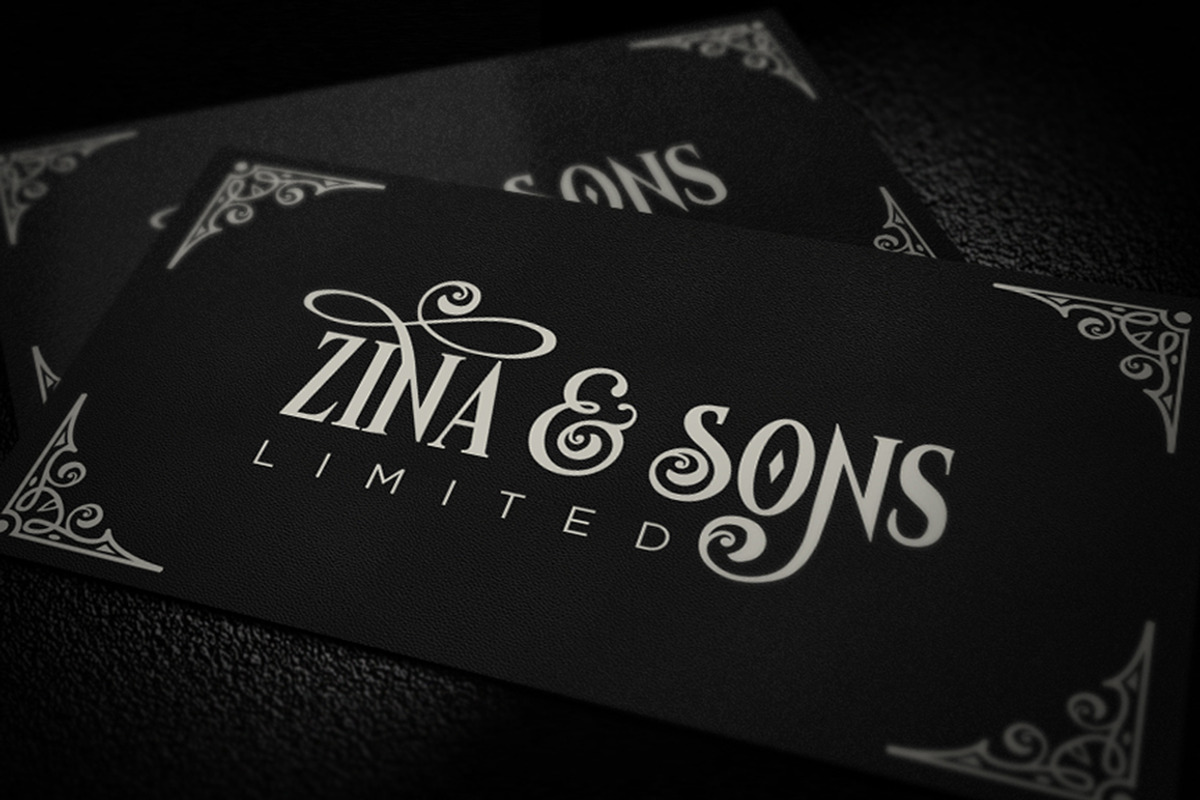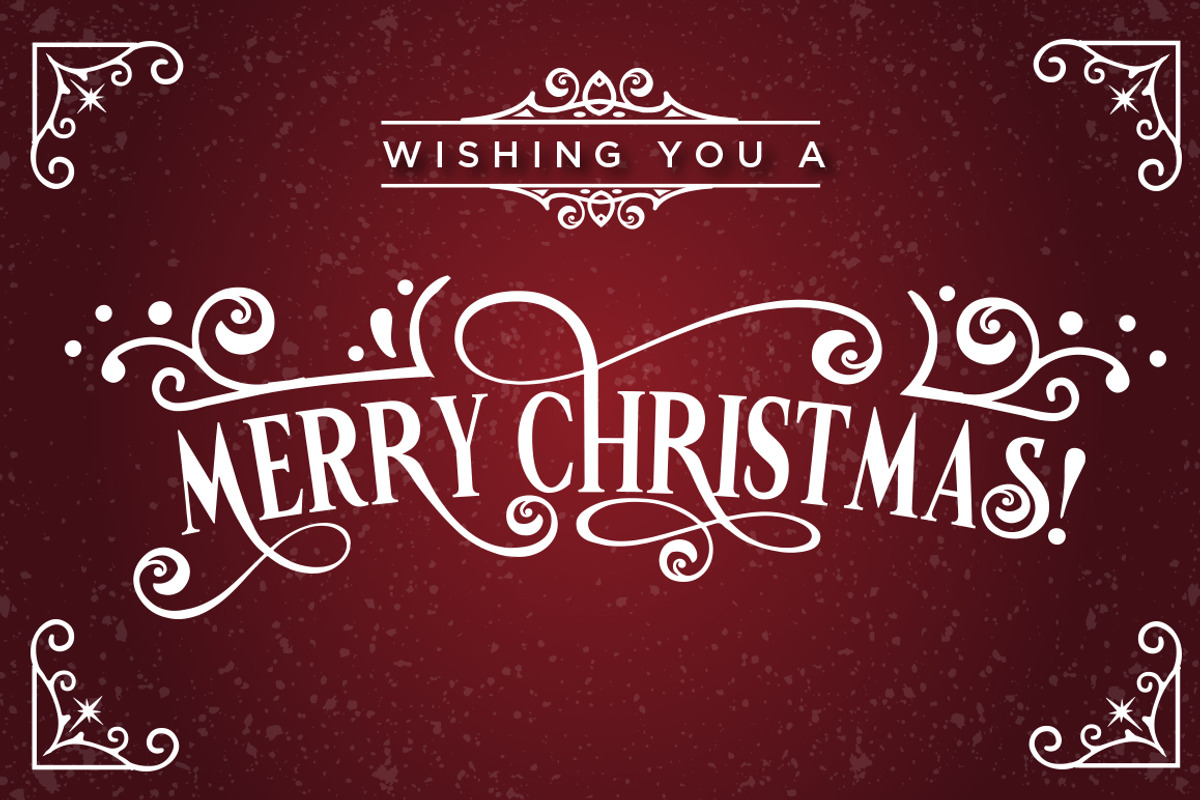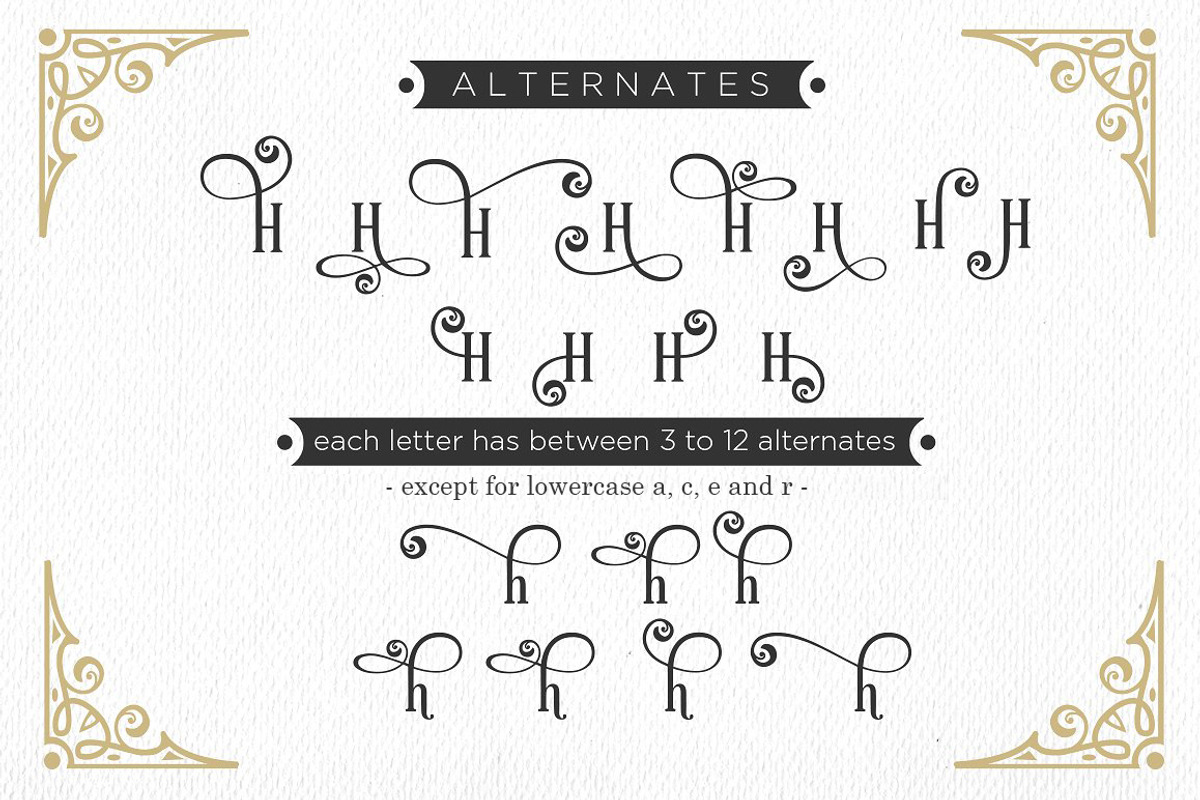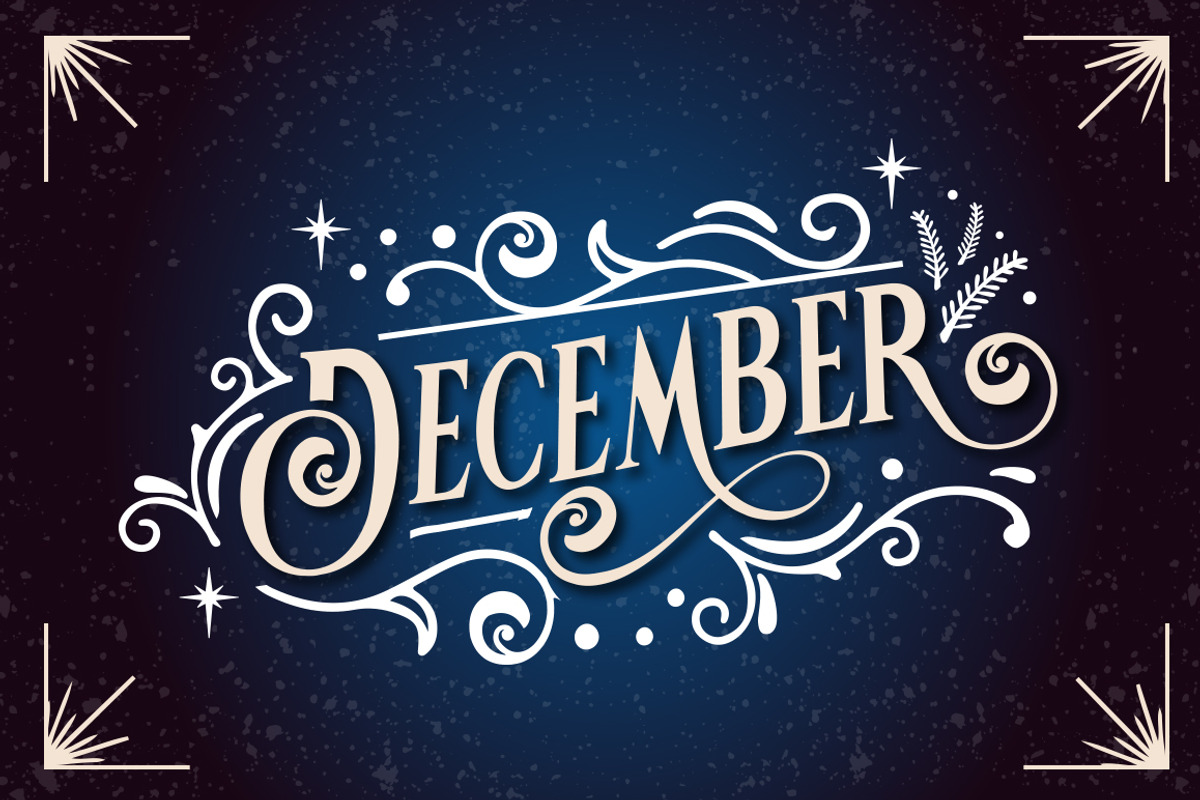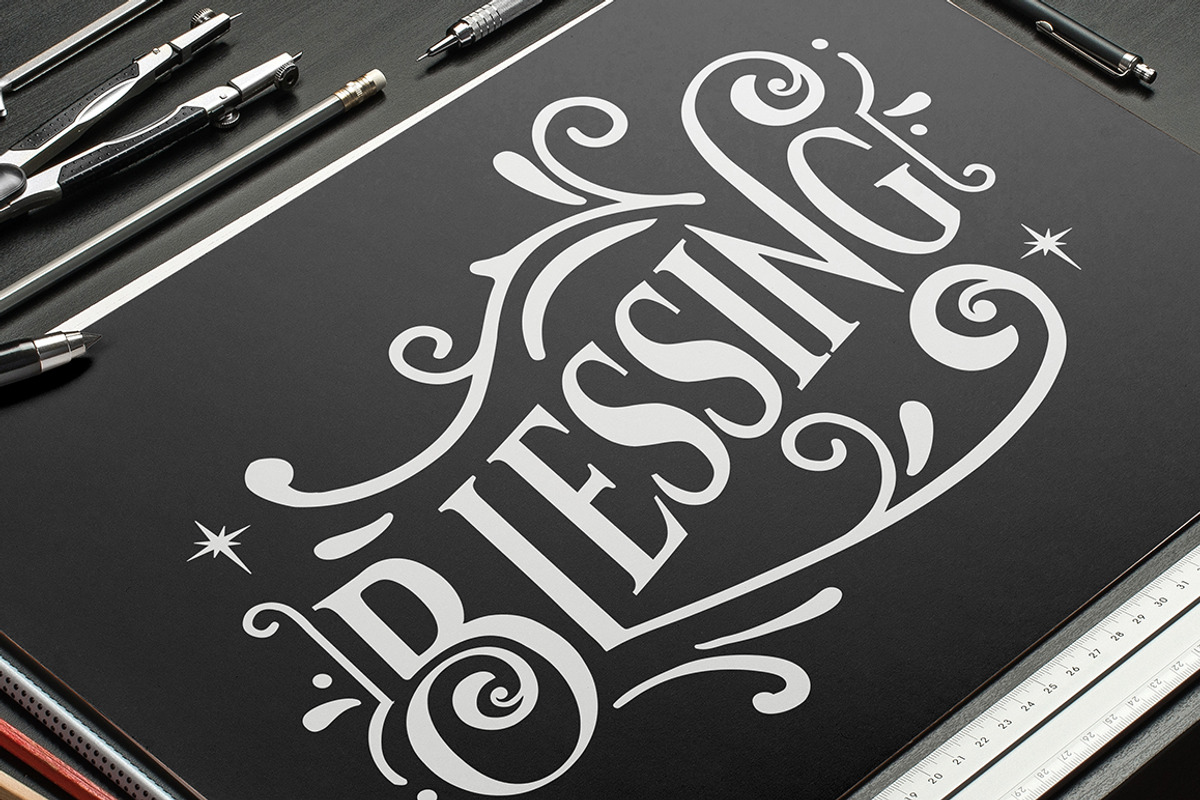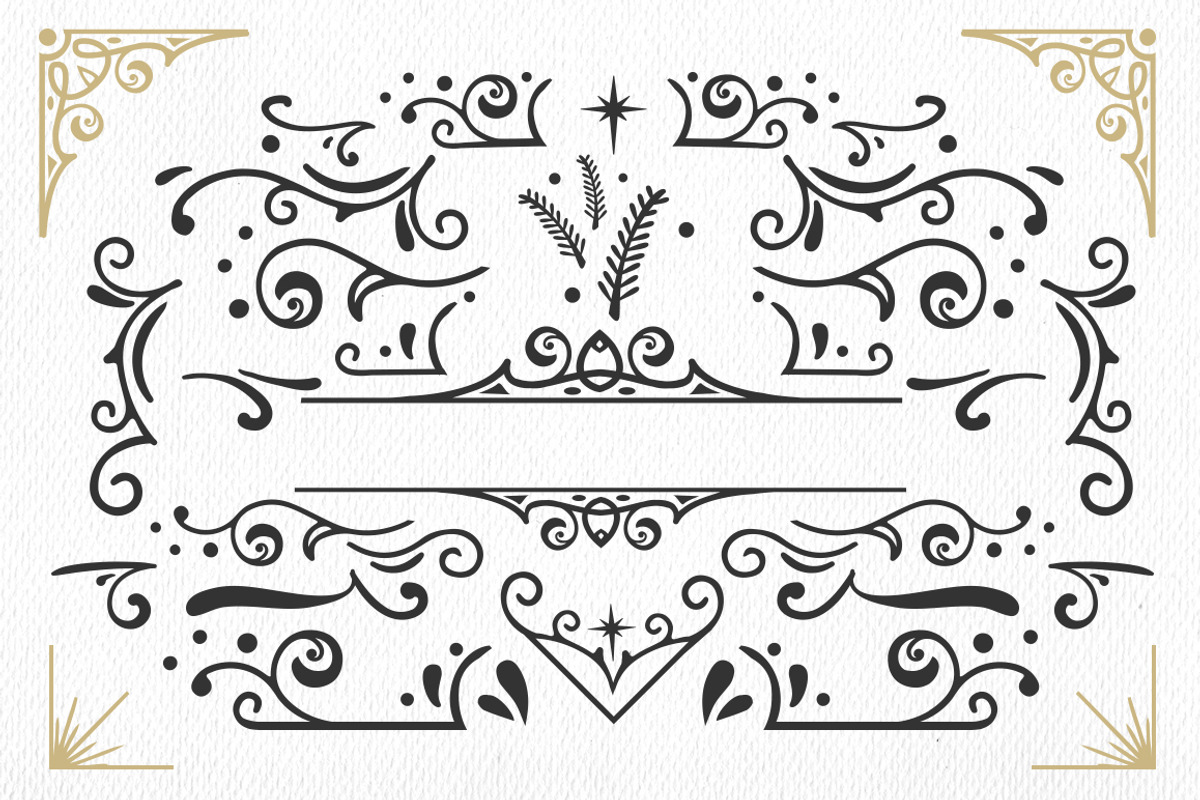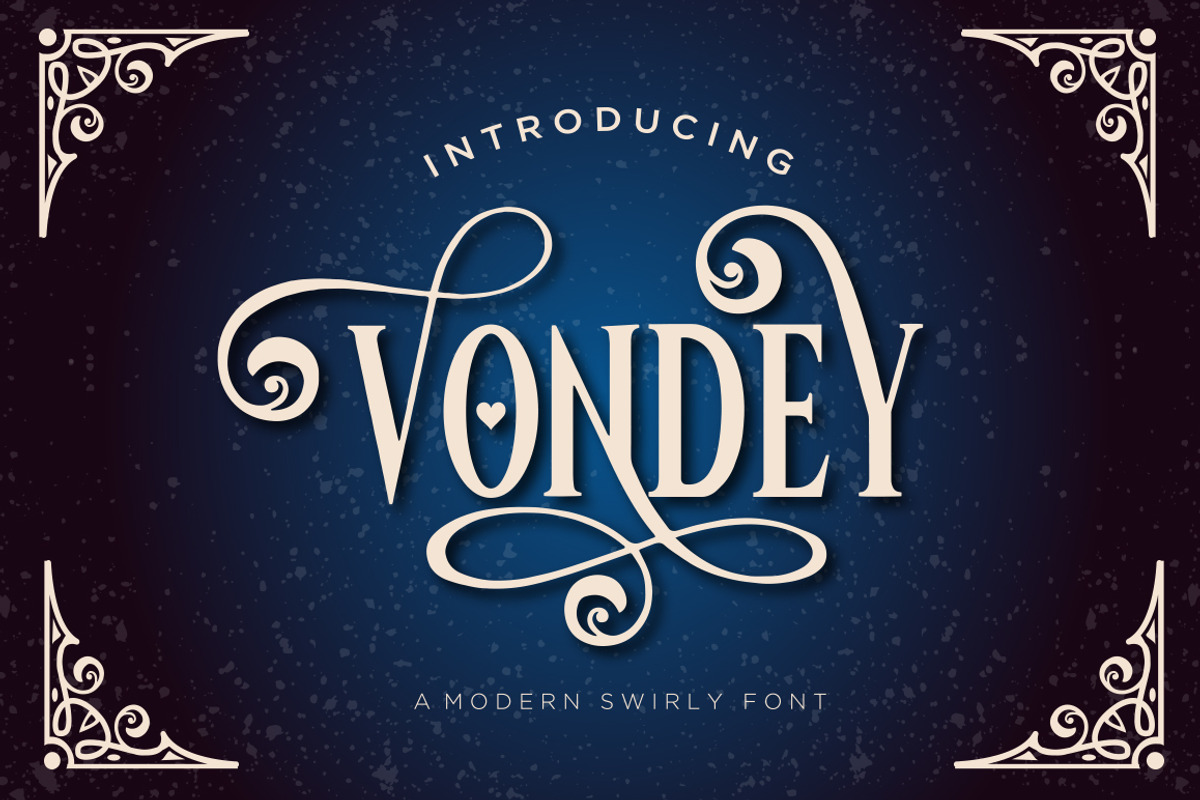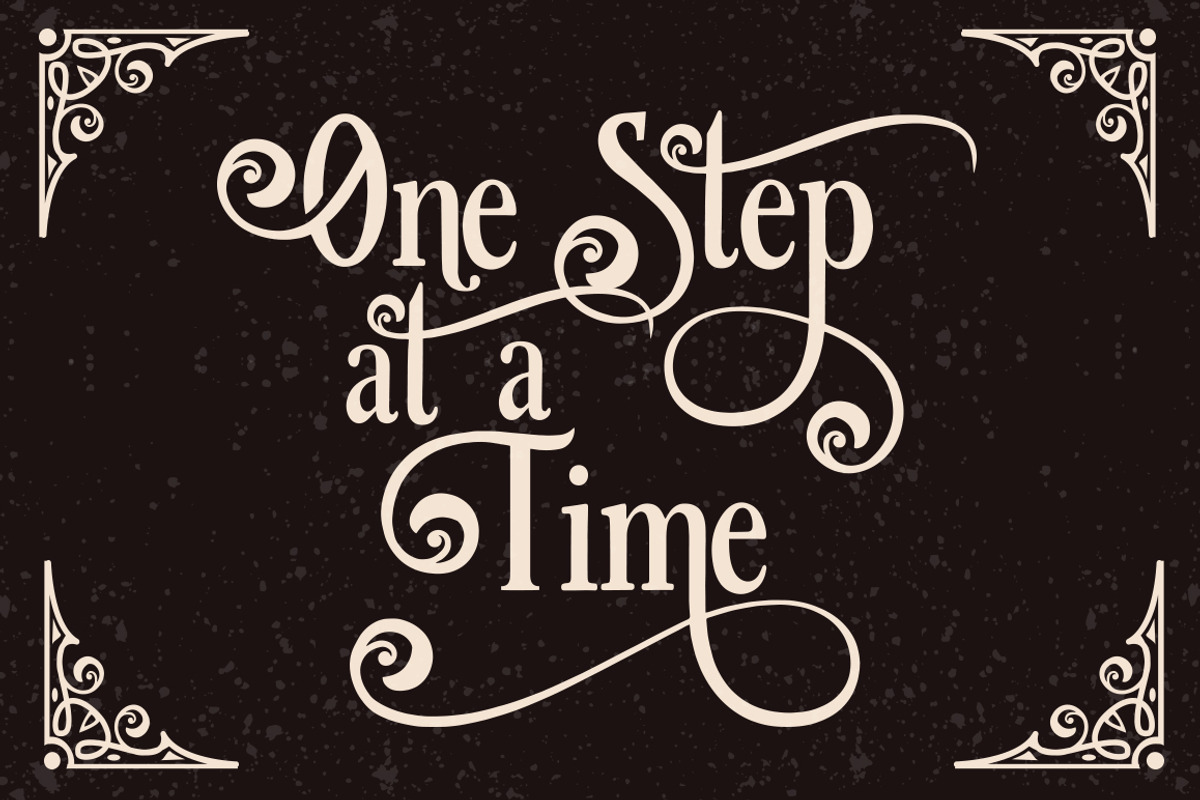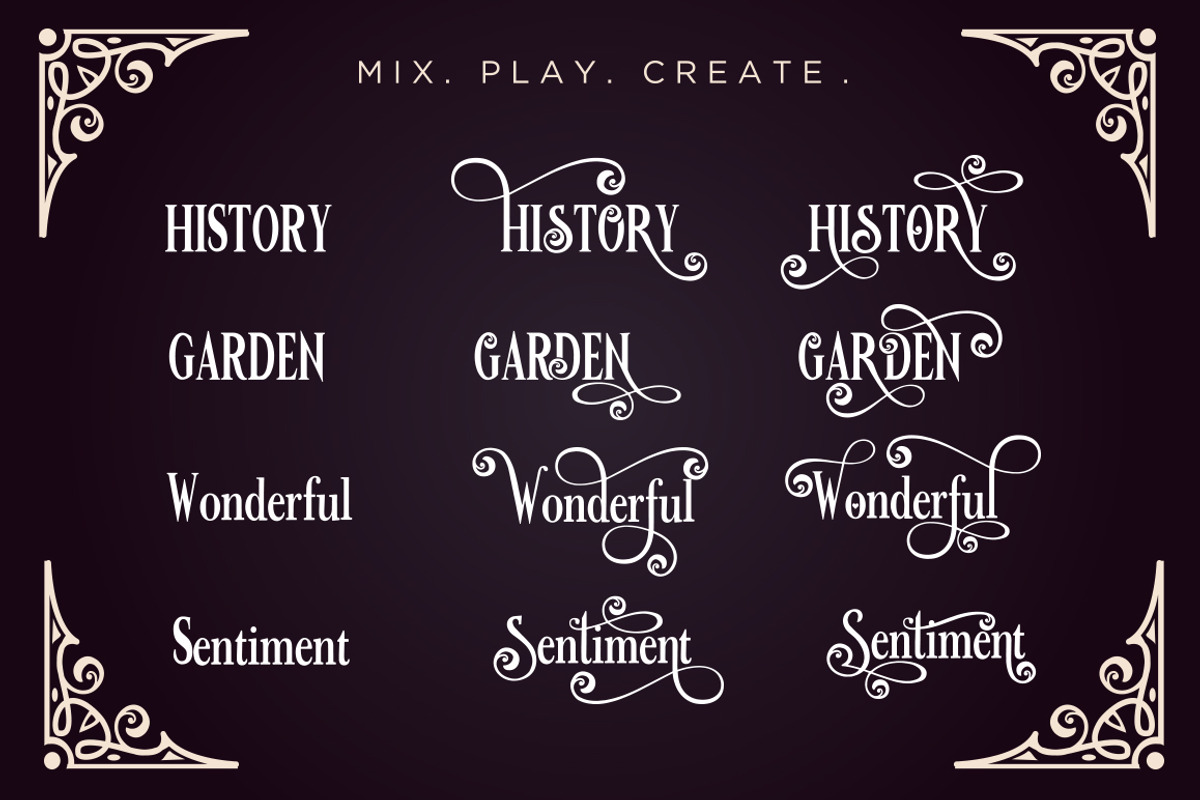
Vondey - Holiday font & ornaments
Vondey is a display font with more than 220 alternates and a Bonus Ornament font with lots of swirls and decorations, perfect for the Holidays.
The examples in no way represent what you actually get. This is nothing more than a serif font and thats it. I don't understand showing all the embellishments and "alternates" and not providing anything extra. What you see is not what you get.
There are no "alternates" for each letter. This is just another Seriffed face you could download for free. Total rip-off.